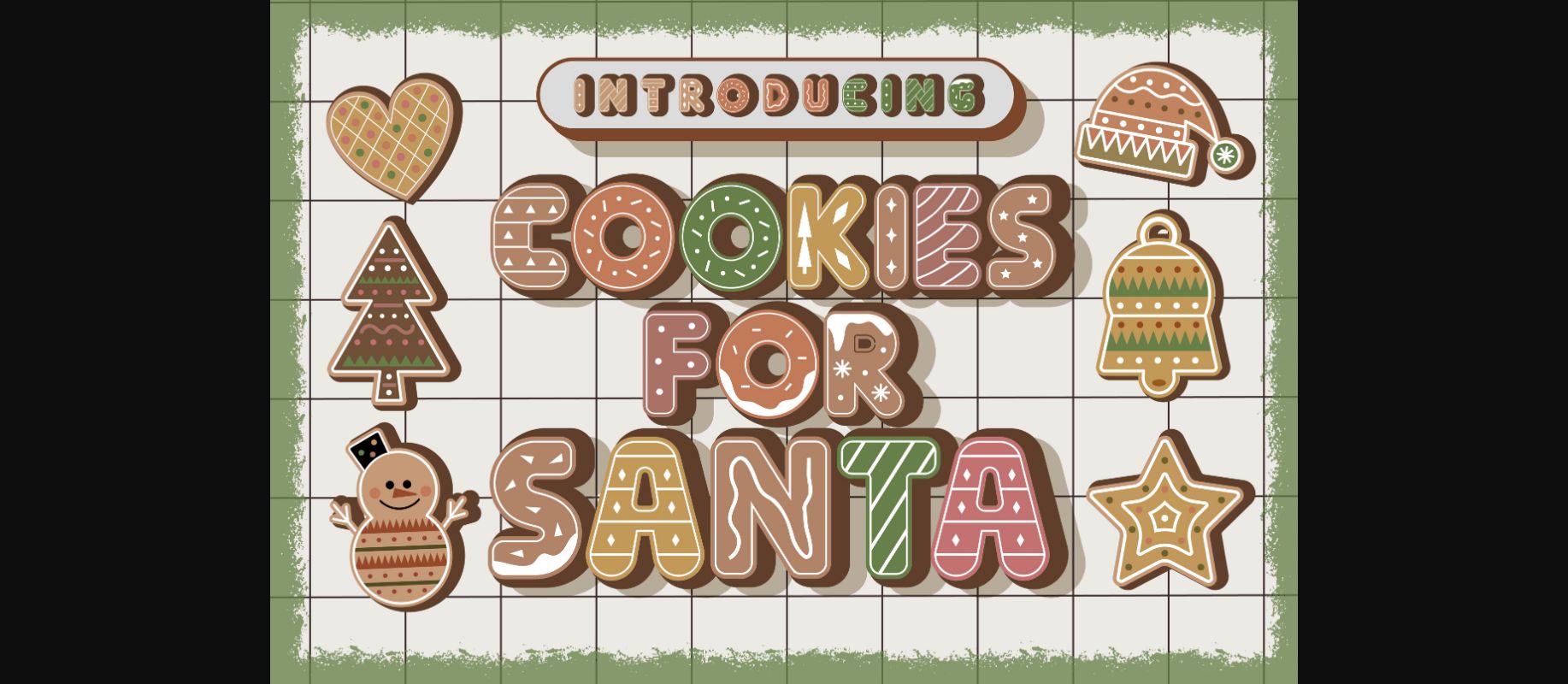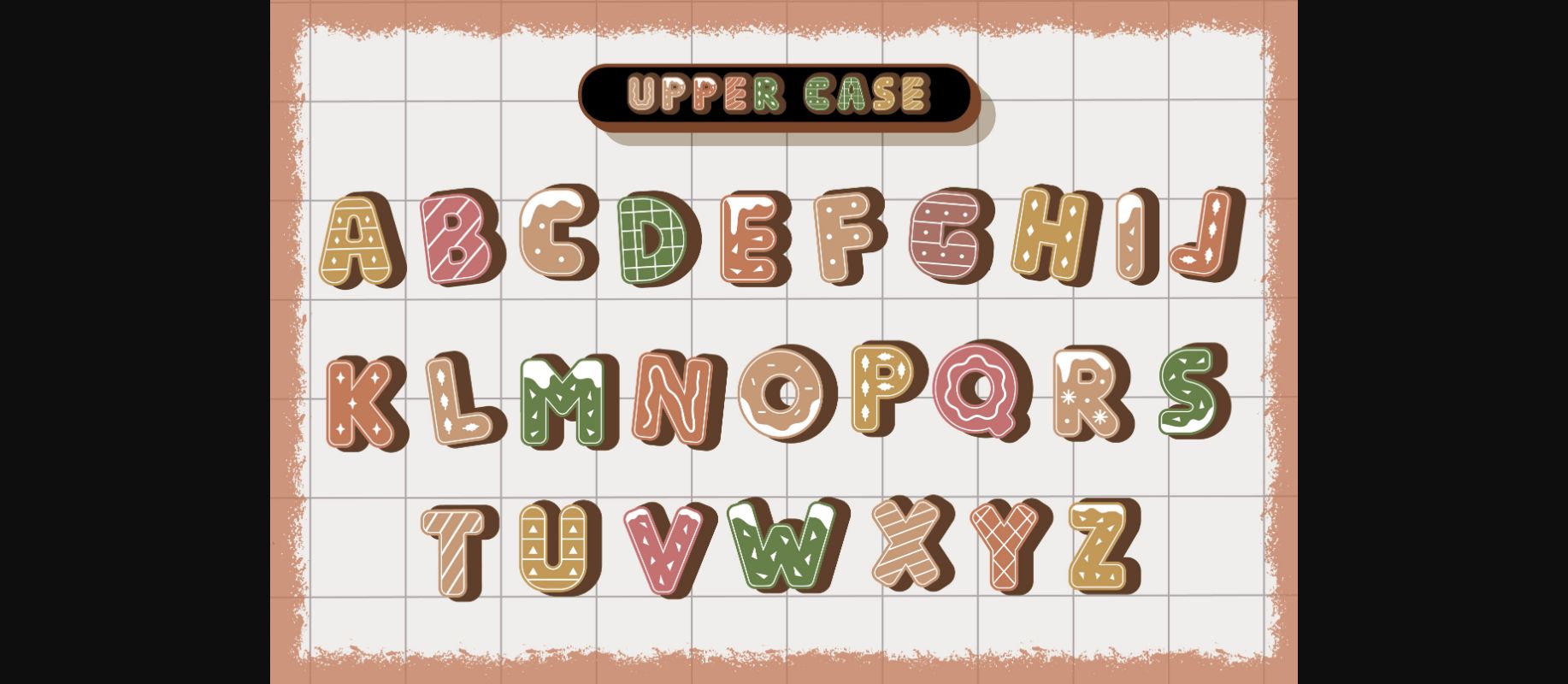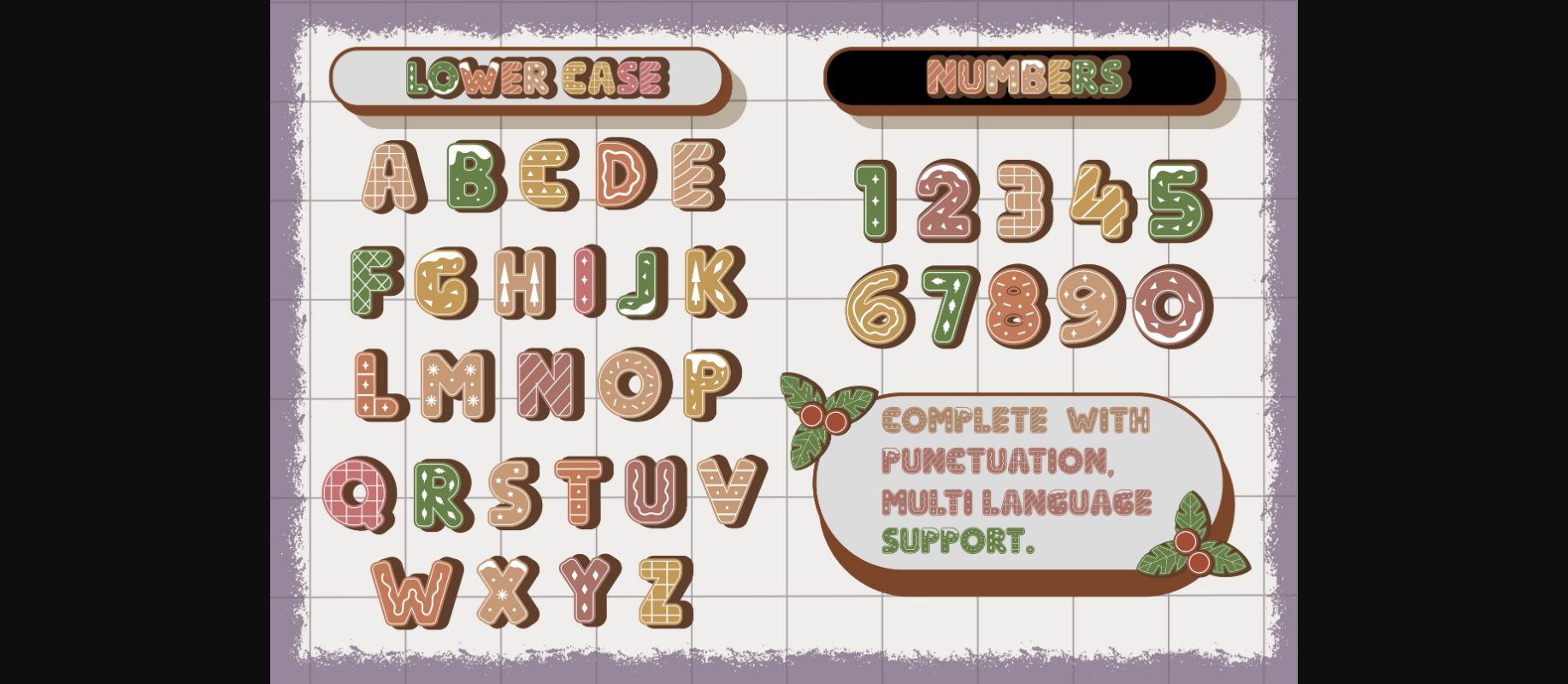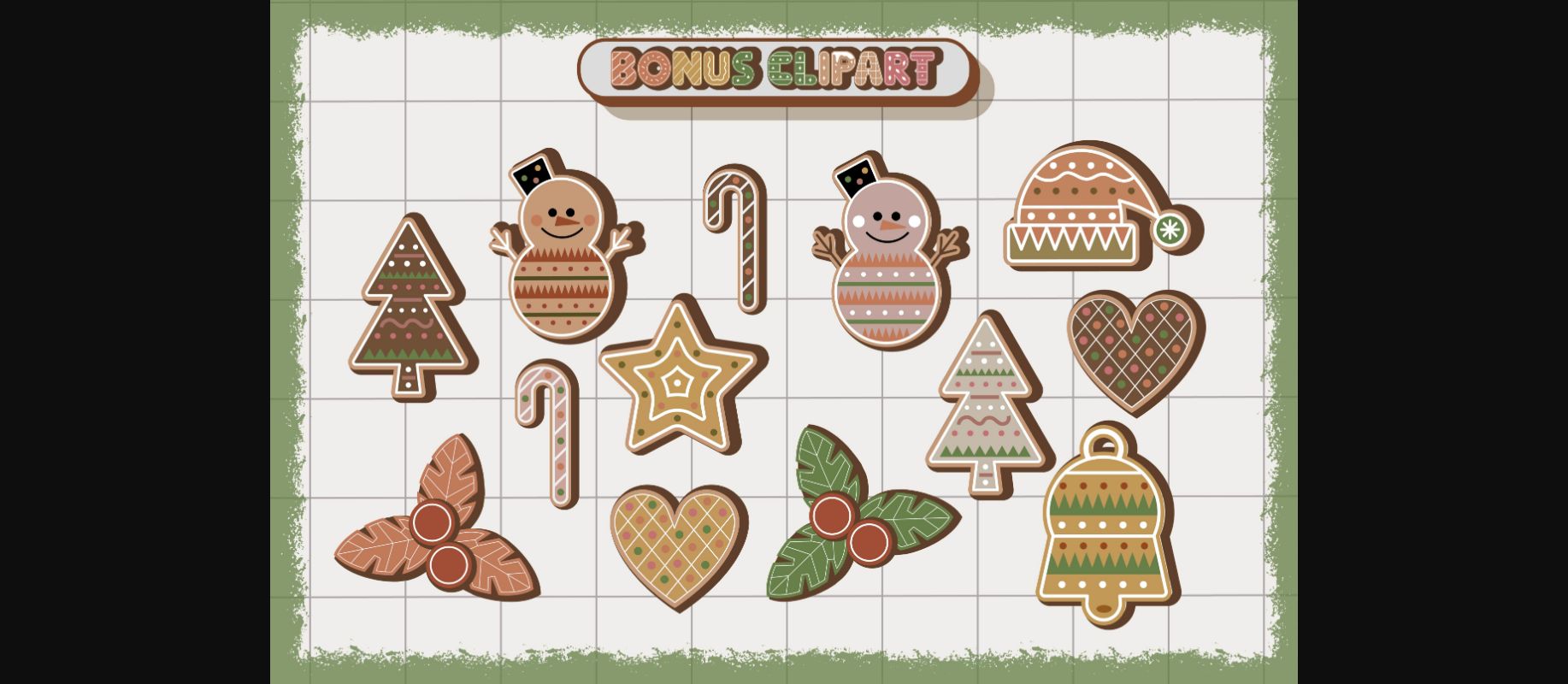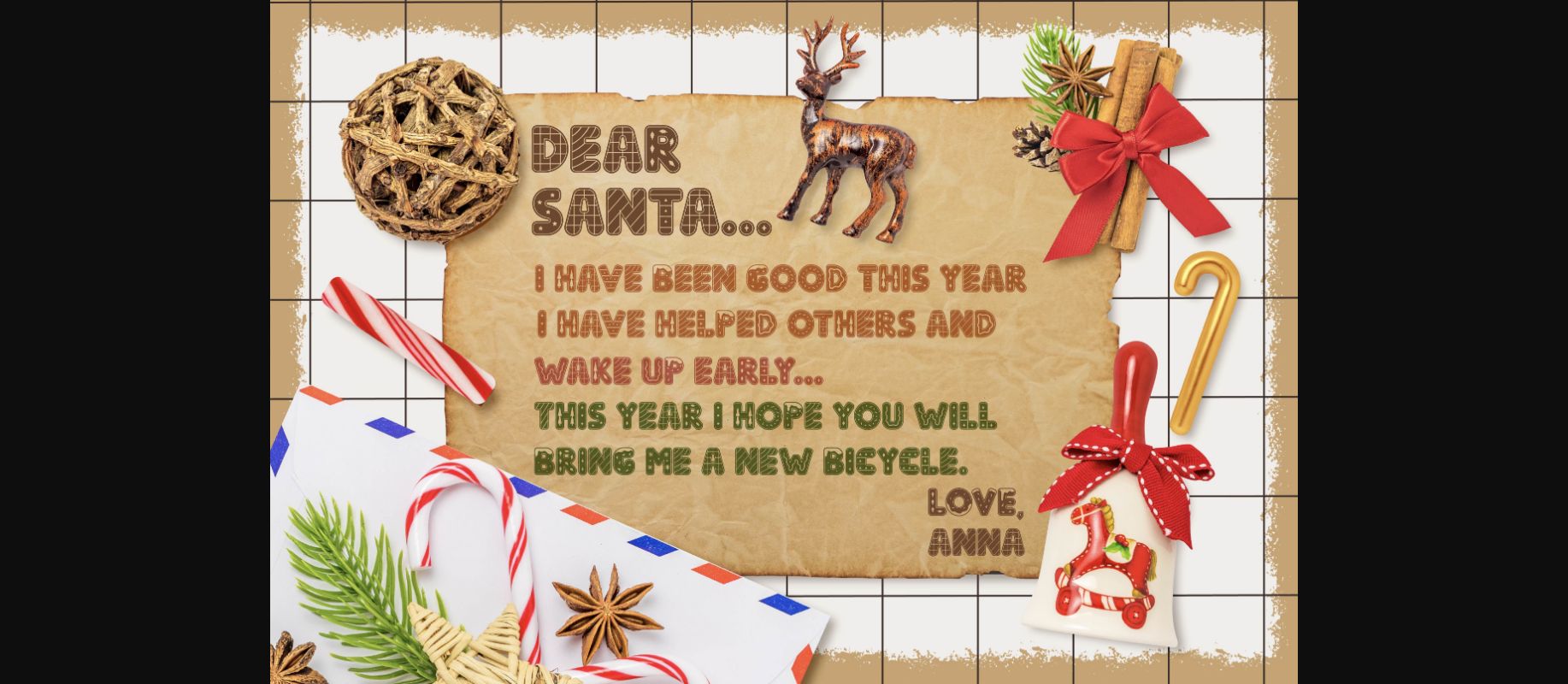
Cookies for Santa Font
About Cookies for Santa Font
Cookies For Santa is a bold decorative font with a Christmas theme. Make your holiday season bright and festive with the Cookies For Santa font!